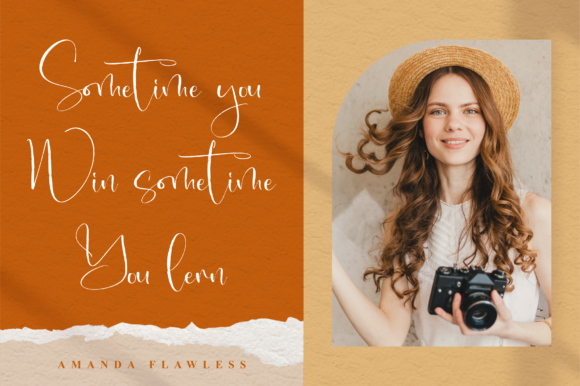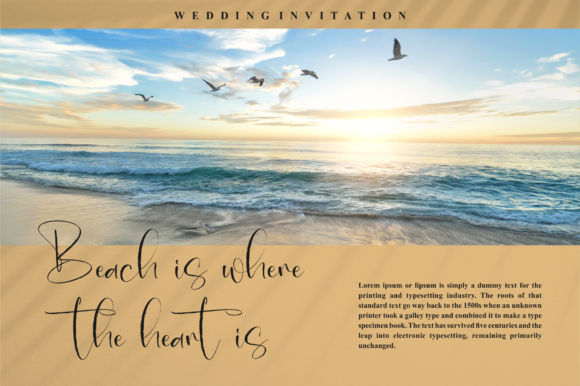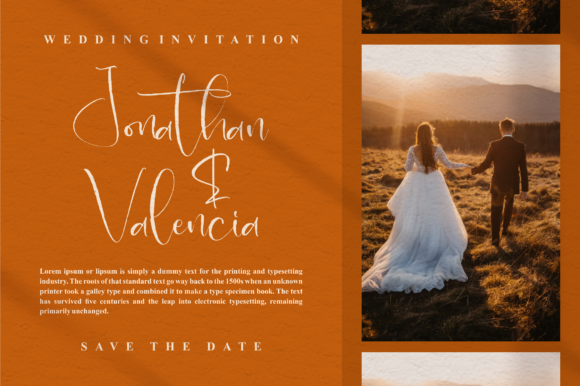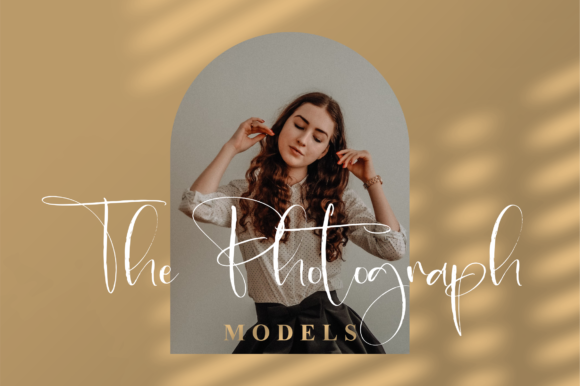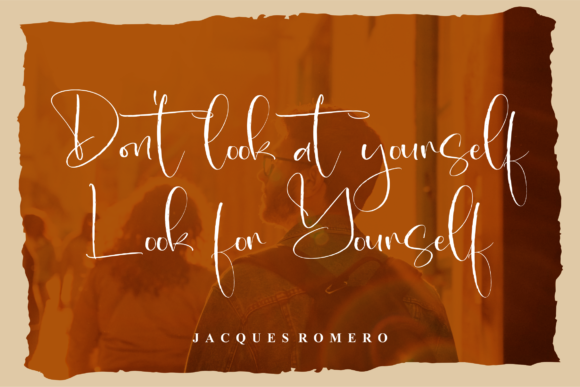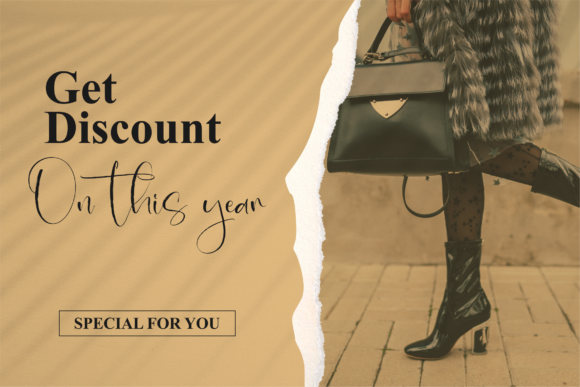
Easterlie Font: A Whimsical and Modern Handwritten Font for Your Designs
Are you looking for a font that can add a touch of magic to your designs? Look no further than Easterlie Font, a beautiful handwritten font that combines modern style with a whimsical feel. With Easterlie, you can create stunning designs that transport your audience to a world of wonder and enchantment.
The Characteristics of Easterlie Font
Easterlie Font is a unique and eye-catching font that boasts a range of characteristics that make it perfect for designers and crafters. Here are some of its key features:
- Handwritten style: Easterlie Font has a beautiful, handwritten style that gives it a personal and organic feel.
- Modern yet whimsical: This font combines modern style with a whimsical feel, making it perfect for designers who want to create unique and eye-catching designs.
- Magical and enchanting: Easterlie Font has a magical quality that will transport your designs to a world of wonder and enchantment.
Endless Possibilities with Easterlie Font
With Easterlie Font, the possibilities are endless. Here are some ideas to get you started:
- Wedding invitations: Use Easterlie Font to create beautiful and unique wedding invitations that will set the tone for a magical and unforgettable wedding.
- Branding and packaging: Add a touch of whimsy to your branding and packaging with Easterlie Font, perfect for businesses that want to stand out from the crowd.
- Stationery and greeting cards: Create stunning stationery and greeting cards with Easterlie Font, perfect for special occasions like birthdays, holidays, and more.
- Digital designs: Use Easterlie Font in your digital designs, such as social media graphics, blog posts, and more, to add a touch of magic and personality.
Why Choose Easterlie Font?
So why choose Easterlie Font for your designs? Here are just a few reasons:
- Unique and eye-catching: Easterlie Font is a unique and eye-catching font that will make your designs stand out from the crowd.
- Easy to read: Despite its whimsical feel, Easterlie Font is easy to read and understand, making it perfect for a range of design applications.
- Versatile: Easterlie Font is a versatile font that can be used in a range of design applications, from wedding invitations to digital designs.
Tips for Using Easterlie Font
Here are some tips for using Easterlie Font in your designs:
- Experiment with different colors: Easterlie Font looks great in a range of colors, so don’t be afraid to experiment and find the perfect color for your design.
- Pair with other fonts: Easterlie Font pairs well with other fonts, so try pairing it with a bold font for headings or a clean font for body text.
- Use it sparingly: While Easterlie Font is a beautiful font, it can be overwhelming if used too much. Use it sparingly to add a touch of magic to your designs.
Easterlie Font is a beautiful and unique handwritten font that combines modern style with a whimsical feel. With its endless possibilities and versatility, it’s perfect for designers and crafters who want to create stunning designs that transport their audience to a magical world. So why not give Easterlie Font a try and see the magic for yourself?